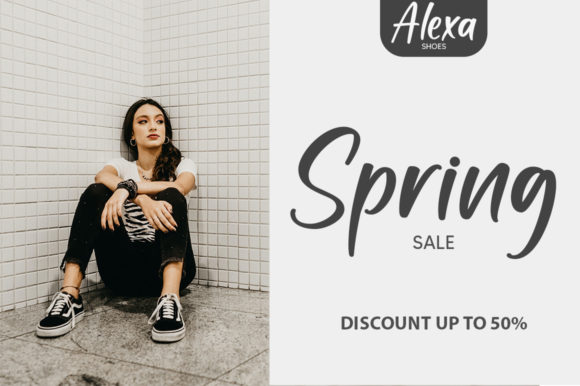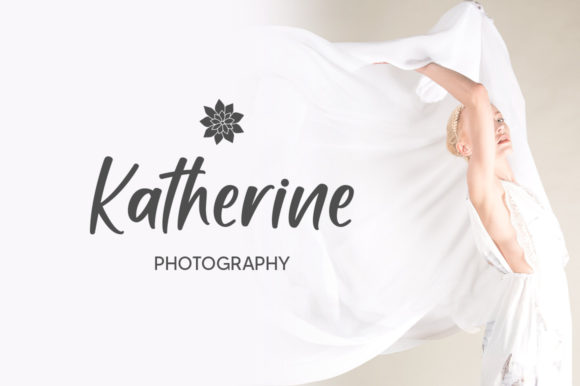
Daylight Font
db-ku.com - Script & Handwritten -- Daylight is a delicate and simple-lettered handwritten font, perfect for all the chalkboard quotes and teaching materials you wish to create! Its authentic look will add a personal and realistic feel to your designs.